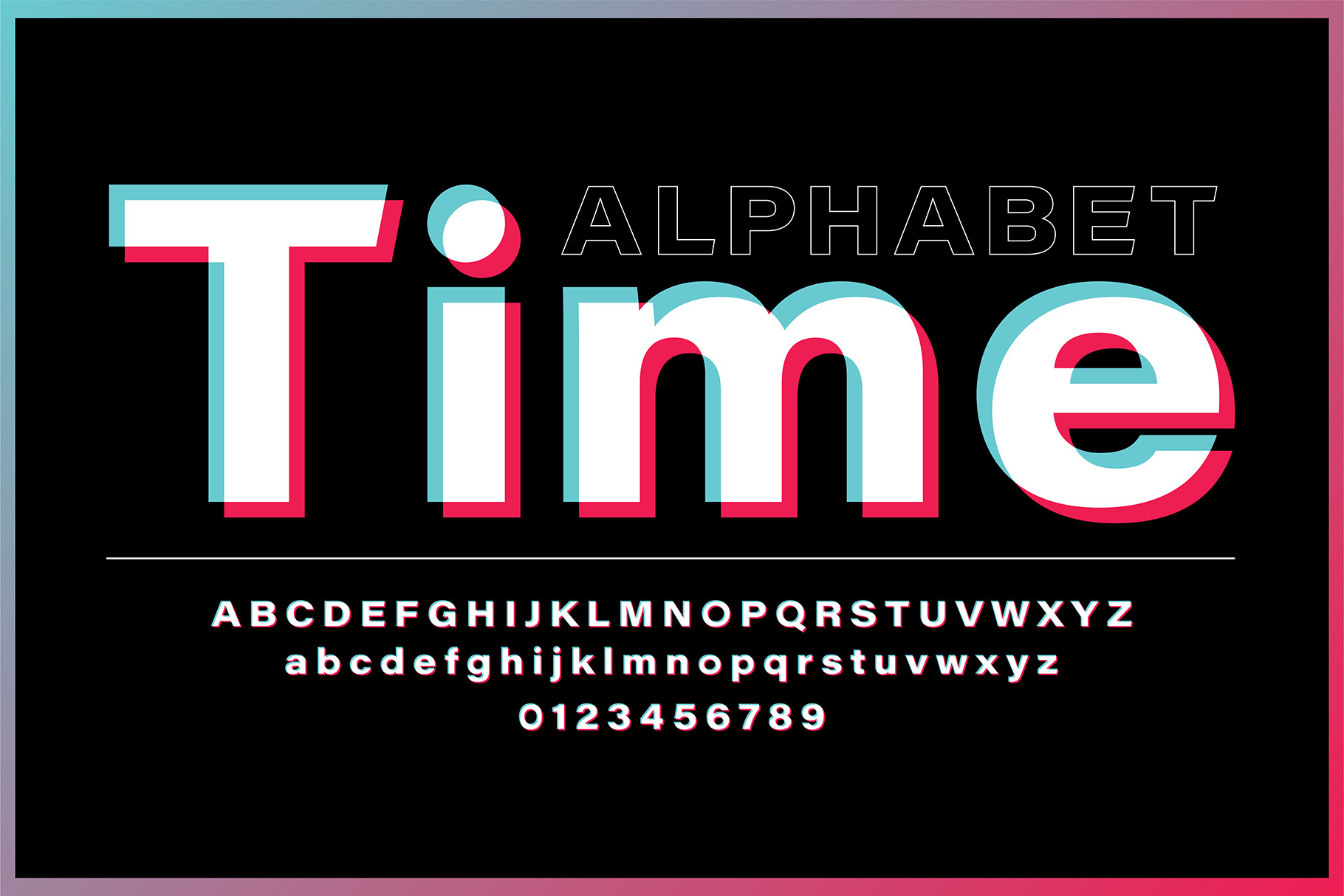
Glitch Alphabet Font
Modern Glitch Alphabet Font. Trendy 3D Distorted Letters in TikTok Style for Social Media, Posters, and Digital Designs - EPS (Not a Font!)
- Uppercase letters A - Z
- Lowercase letters A - Z
- Numbers 0 - 9
- Clean, modern, and unique alphabet design